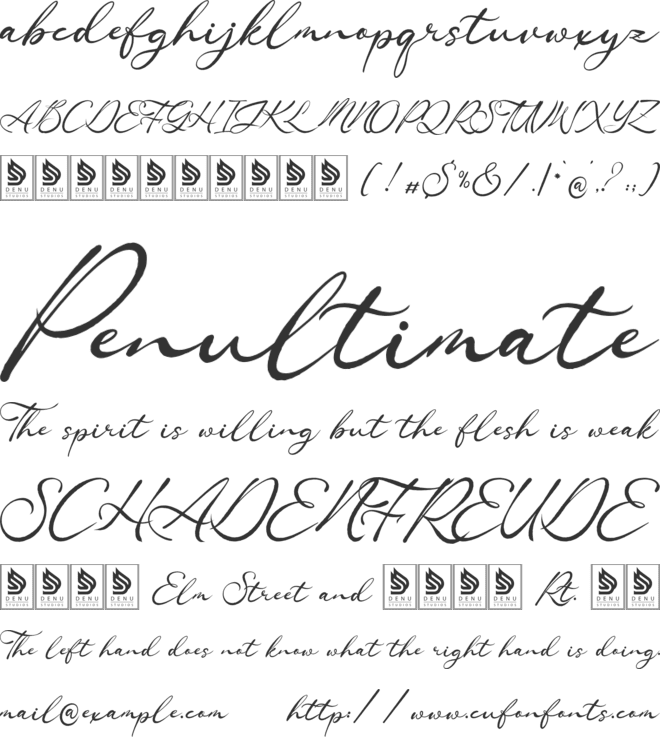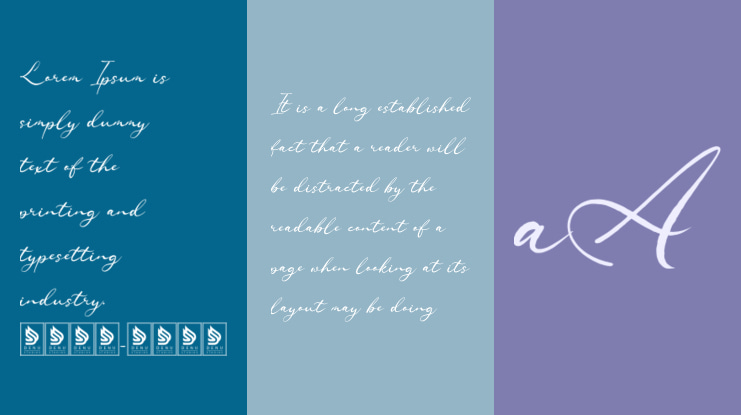
Ranuficah | Elegant Calligraphy Script, is suitable for any projects such as: logos, branding projects, homeware designs, product packaging, mugs, quotes, posters, shopping bags, t-shirts, book covers, name card, invitation cards, greeting cards, label, photography, watermark, special events, and all your other lovely projects that need a Script taste.